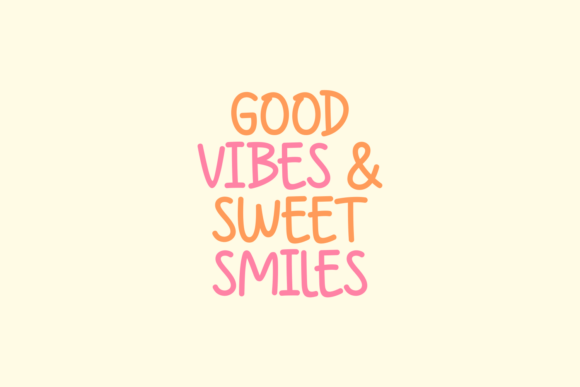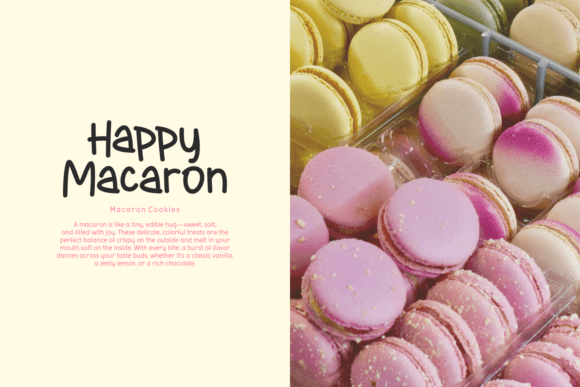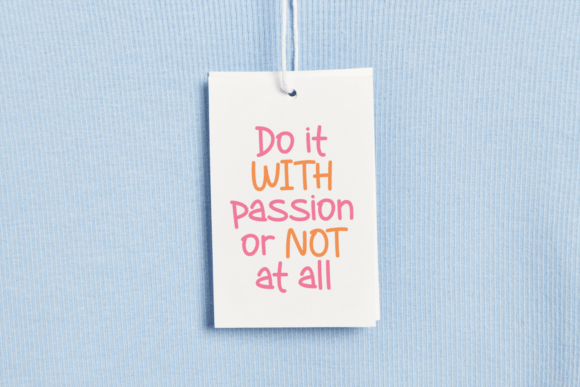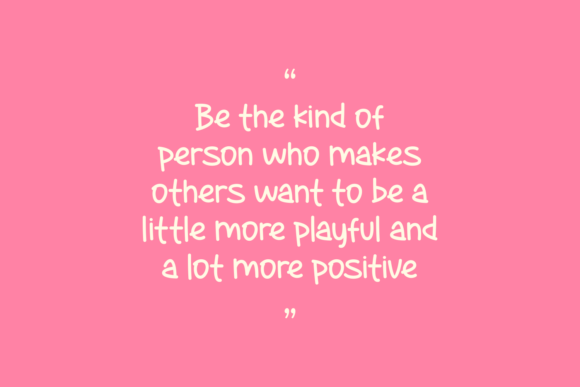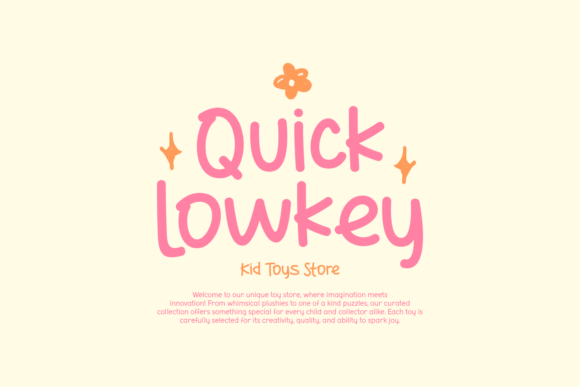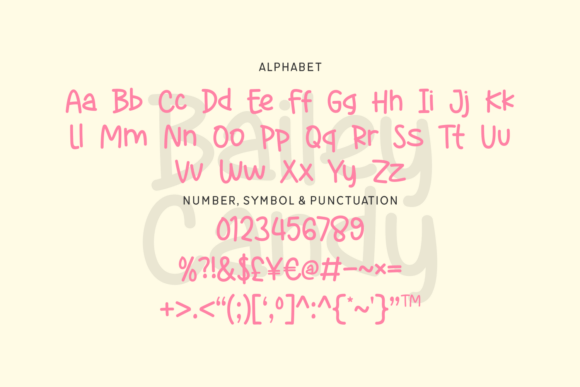
Introducing Bailey Candy Font: The Sweetest Addition to Your Design Collection
Are you on the hunt for a font that exudes warmth, friendliness, and a dash of sweetness? Look no further than the Bailey Candy Font! This delightful handwritten font is sure to capture the hearts of designers, crafters, and anyone looking to add a personal touch to their projects. With its natural and unique style, Bailey Candy is incredibly versatile and can be used in a wide range of designs, from whimsical crafts to professional branding materials.
The Charm of Bailey Candy Font
Bailey Candy Font boasts a sweet and friendly aesthetic that is sure to make your designs stand out. Its handwritten style gives off a warm and inviting vibe, perfect for creating a sense of connection with your audience. The font’s natural and unique characteristics make it feel approachable and authentic, adding a touch of personality to any project.
One of the most significant advantages of Bailey Candy Font is its versatility. Whether you’re working on a DIY craft project, a branding campaign, or a social media graphic, this font is sure to fit right in. Its adaptability knows no bounds, and the only limit is your imagination! From playful and whimsical to elegant and sophisticated, Bailey Candy Font can be used to create a wide range of designs that cater to different tastes and preferences.
Bailey Candy Font is a dream come true for designers and crafters who want to add a personal touch to their work. Whether you’re creating custom stationery, party decorations, or branding materials, this font is sure to bring a smile to your face and your audience’s face. Its friendly and approachable style makes it perfect for:
- DIY craft projects, such as handmade cards, gift tags, and scrapbooking
- Branding materials, including logos, business cards, and social media graphics
- Party decorations, such as banners, invitations, and table signs
- Custom stationery, including journals, planners, and letterheads
Tips for Using Bailey Candy Font
To get the most out of Bailey Candy Font, here are a few tips to keep in mind:
- Experiment with different sizes and colors to add visual interest to your designs
- Pair Bailey Candy Font with other fonts to create a unique and eye-catching combination
- Use Bailey Candy Font to add a personal touch to your designs, such as in headings, titles, and captions
- Don’t be afraid to get creative and try out new and innovative ways to use the font
| Font Name | Bailey Candy Font |
| Author | Dani (7NTypes) |
In conclusion, Bailey Candy Font is a sweet and friendly handwritten font that is sure to capture the hearts of designers, crafters, and anyone looking to add a personal touch to their projects. With its natural and unique style, versatility, and adaptability, this font is perfect for a wide range of designs. Whether you’re a seasoned designer or a crafty DIY enthusiast, Bailey Candy Font is sure to become a favorite addition to your design collection. So why wait? Get creative and indulge in the sweetness of Bailey Candy Font today!
- Sweet and friendly handwritten font
- Natural and unique style
- Incredibly versatile and adaptable
- Perfect for DIY craft projects, branding materials, and custom stationery
- Easy to use and pair with other fonts